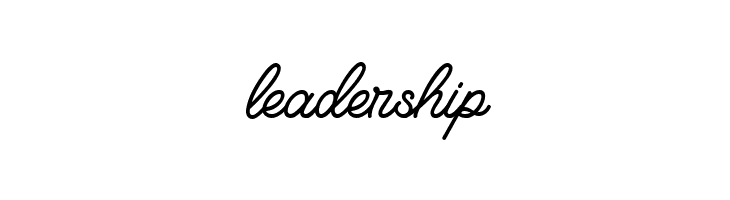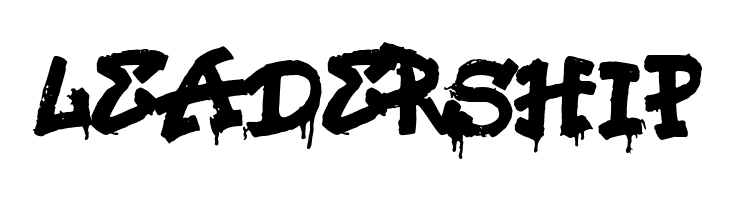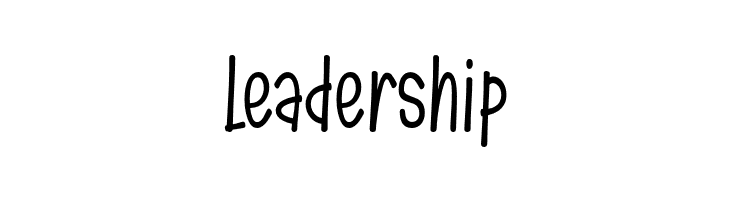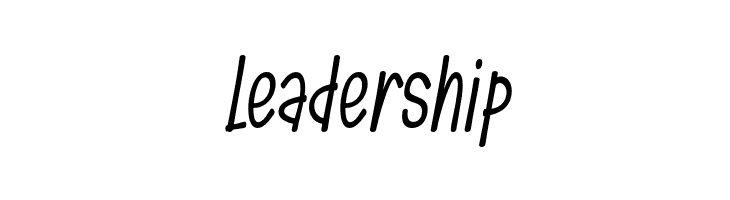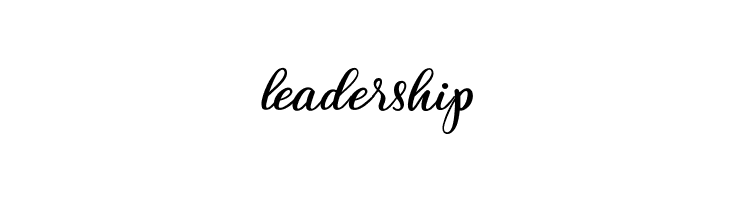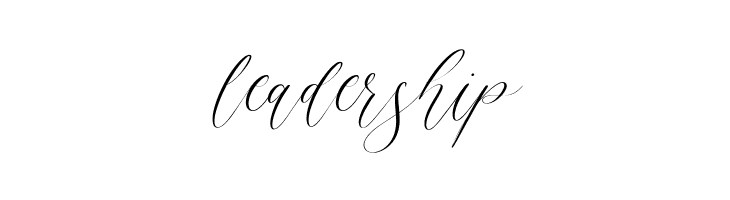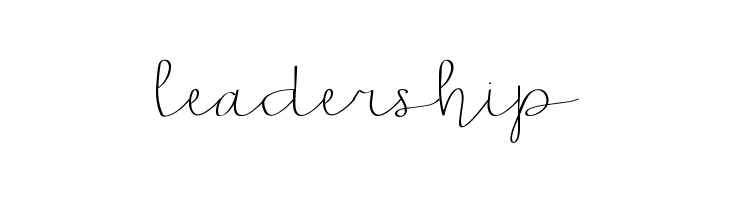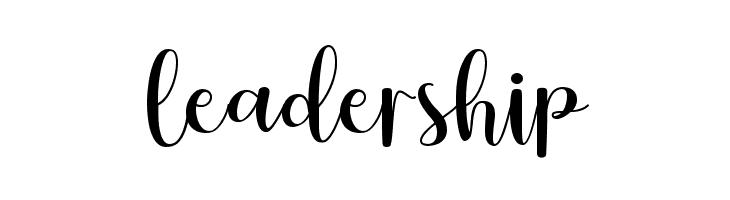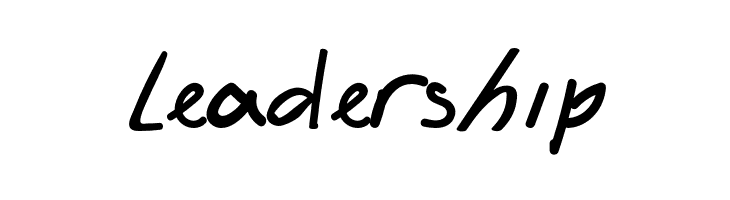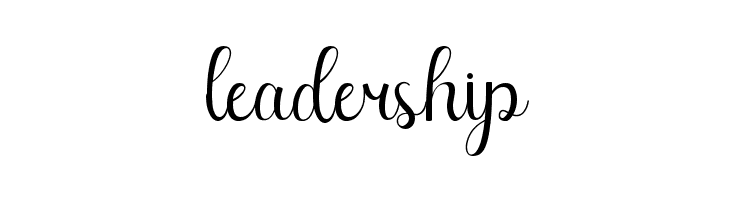
• Felicia Regular
A lively handwritten font with a playful and casual style.
• Felicia Signature Script
A flowing, cursive script font with an elegant, signature-like style.
• Felicia Signature Swash
A flowing, elegant script font with sweeping swashes and varied stroke thickness.
• Felicia-Regular
A playful, casual handwritten font with fluid strokes and a dynamic style.
• Felician Demo Regular
A cursive script font with elegant loops and swashes, offering sophistication and grace.
• Feliciana Demo
A delicate and elegant script font with flowing, interconnected letters.
• Felicity
Ornate decorative flourishes with varying weights and intricate details.
• Felipe Segundo
A bold, graffiti-inspired font with a dripping, urban style.
• Felisha
An elegant, flowing script font with graceful curves and artistic flair.
• FelishaRoselandDemo
A flowing, cursive script with elegant, sweeping strokes.
• felixsalotto
A dynamic, expressive handwritten font with fluid, irregular strokes.
• felixtowe
A high-contrast, elegant serif font with sharp serifs and refined curves.
• felixtowe Italic
An elegant italic font with smooth, flowing lines and moderate contrast.
• Fellahin
A playful and elegant script font with a handwritten style.
• Fellicia Personal Use
A dynamic, expressive handwritten font with fluid, cursive strokes.
• Fellini Club
A bold, blocky font with a modern and playful aesthetic, featuring unique cut-out shapes.
• Fellissia
An elegant script font with flowing, interconnected letters and artistic flourishes.
• Fellove - Personal use
A playful, elegant cursive script with a whimsical flair.
• Fellycia
A playful, casual handwritten font with smooth, flowing strokes.
• fellyssa